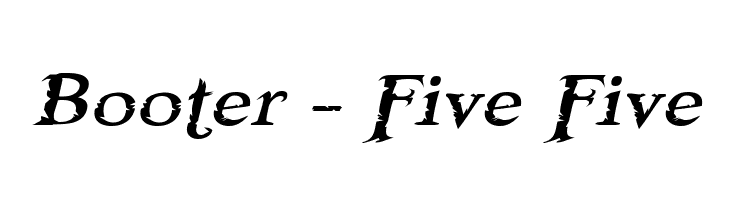
An intricate, decorative monogram font with elaborate swirls and flourishes.
An intricate, decorative font with elaborate swirls and flourishes.
An intricate, decorative script with elaborate swirls and flourishes.
( Fonts by Steve Ferrera )
A spooky, jagged font ideal for Halloween or eerie themes.
( Fonts by Manfred Klein - manfred-klein.ina-mar.com )
A gothic, medieval-inspired font with ornate, high-contrast letterforms.
( Fonts by Manfred Klein - manfred-klein.ina-mar.com )
A gothic-inspired font with letters in rounded square bricks, perfect for spooky designs.
( Fonts by Sinister Visions - Chad Savage - www.sinisterfonts.com )
A bold, gothic-style font with sharp, elongated serifs for a dramatic effect.
( Heath Notted )
An artistic and whimsical font with elongated, sharp serifs and dynamic curves.
( Fonts by www.fugit-tempus.de )
A dramatic blackletter font with ornate, gothic-inspired details.
( Fonts by Paul Lloyd )
A decorative serif font with swirling embellishments and artistic flair.
A bold, gothic-inspired font with sharp serifs and a strong vertical emphasis.
( Fonts by www.norfok.com - Norfok® Incredible Font Design - Thomas W. Otto )
A bold, gothic-inspired font with sharp serifs and a dramatic flair.
( Fonts by www.norfok.com - Norfok® Incredible Font Design - Thomas W. Otto )
A horror-themed font with a dripping, blood-like effect and sharp serifs.
( Fonts by www.norfok.com - Norfok® Incredible Font Design - Thomas W. Otto )
A bold, shadowed font with a three-dimensional effect.
( Fonts by Johannes Siemensmeyer )
A bold, decorative font with intricate, geometric patterns for a futuristic look.
( Fonts by Paul Lloyd )
An ornate and intricate decorative font with elaborate swirls and flourishes.
( Fonts by Dieter Steffmann )
A bold, ornate blackletter font with a medieval aesthetic.
( Fonts by Jens R. Ziehn - www.filmhimmel.com )
A bold, dynamic font with angular edges and a dramatic slant.
( Fonts by www.fugit-tempus.de )
An ornate and decorative blackletter-style font with intricate flourishes.
( Fonts by www.fugit-tempus.de )
A whimsical collection of floral and celestial dingbats with intricate designs.
( Fonts by www.fugit-tempus.de )
An ornate and decorative blackletter-style font with intricate flourishes.
( Fonts by Intellecta Design )
An ornate Blackletter font with intricate, medieval-style letterforms.
( Fonts by Digital Graphics Labs - www.digitalgraphiclabs.com )